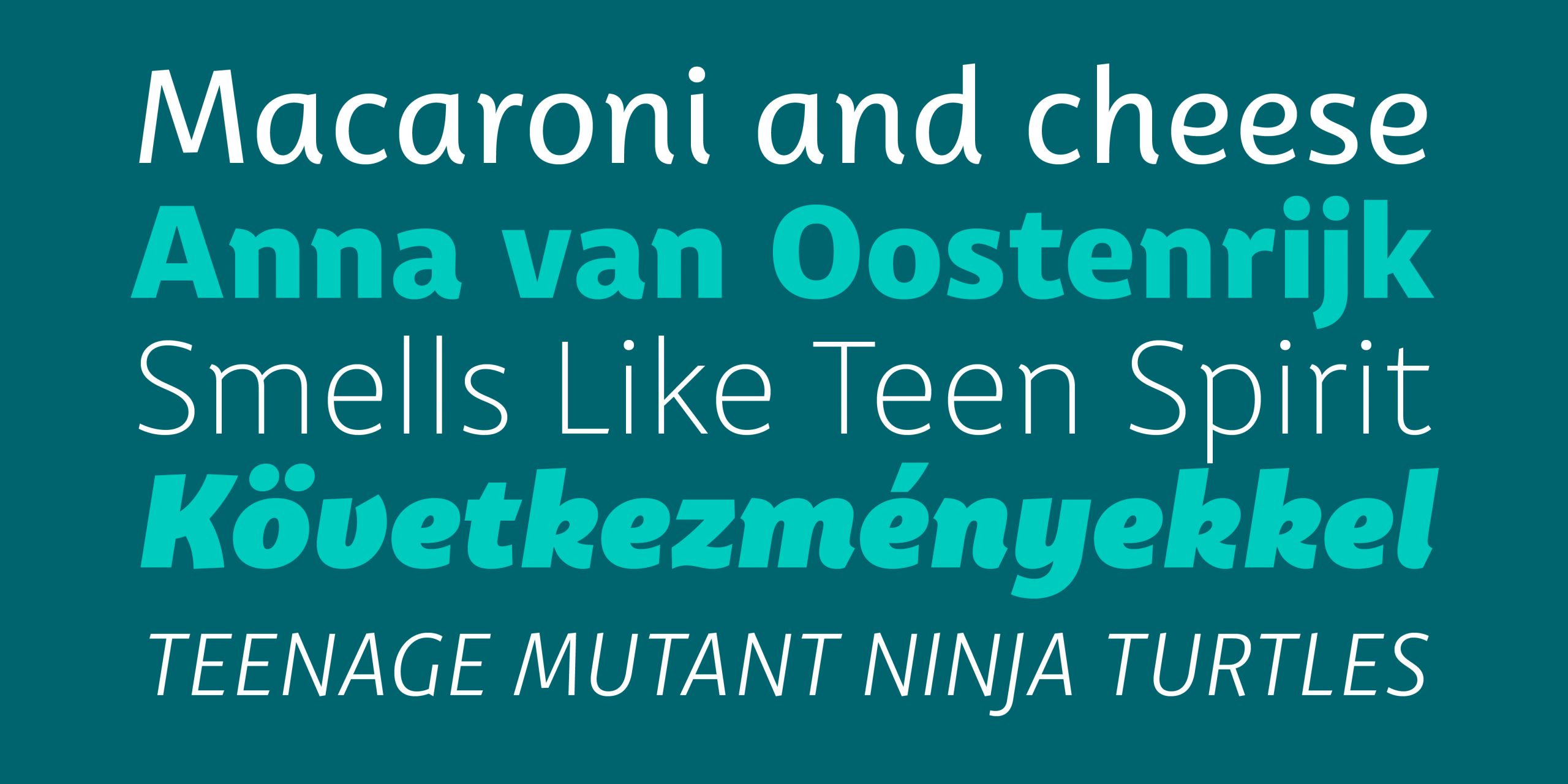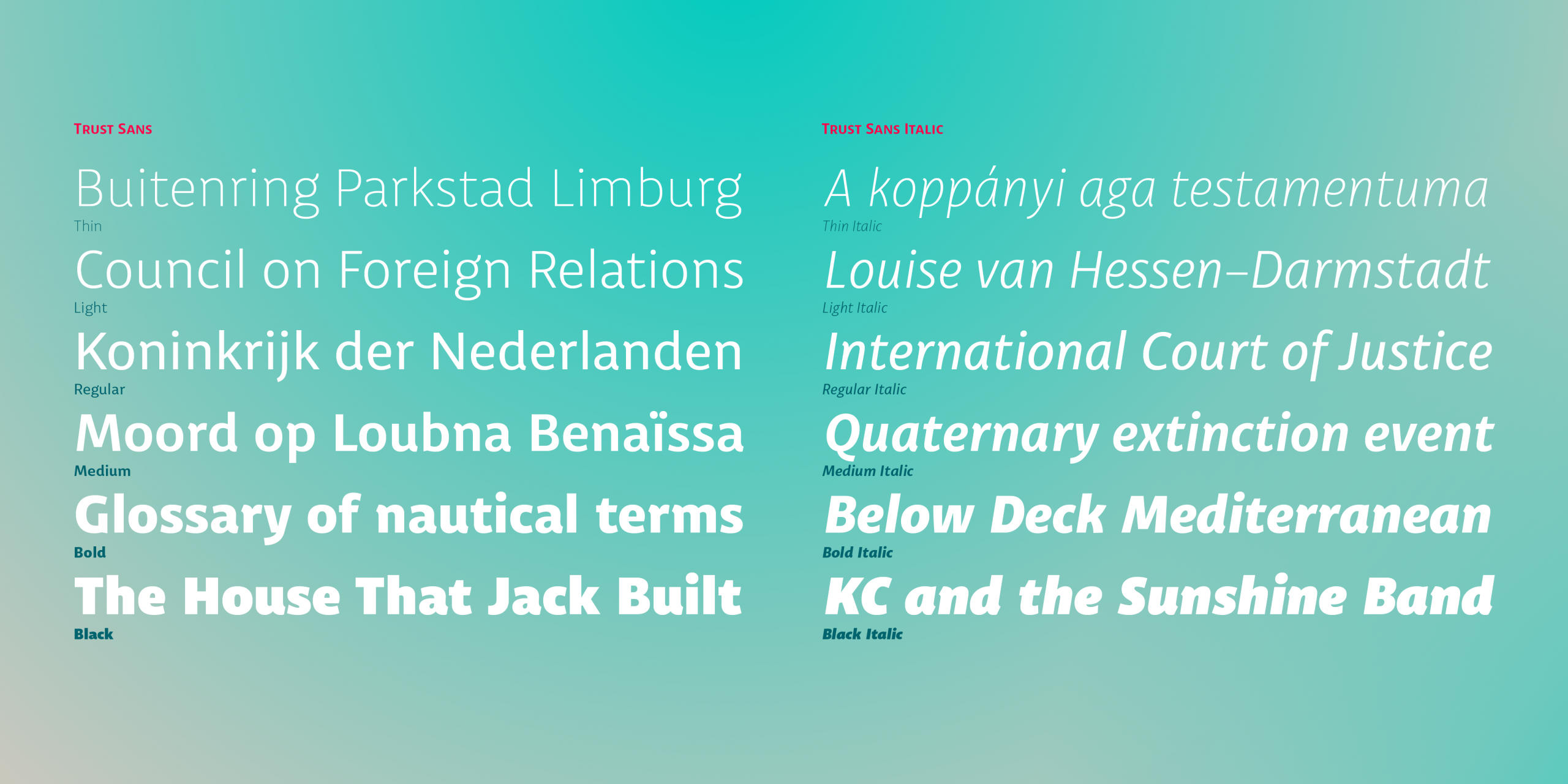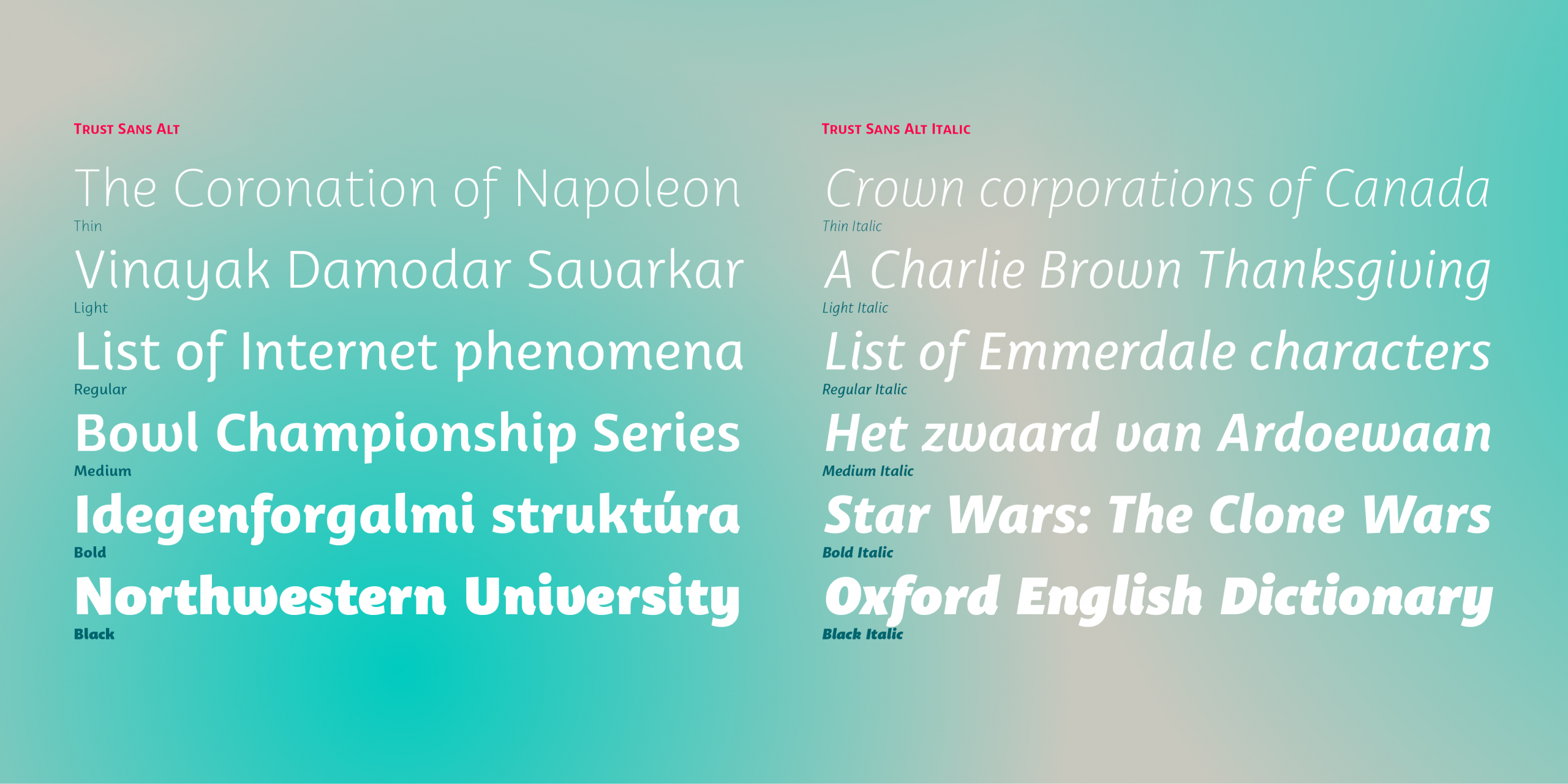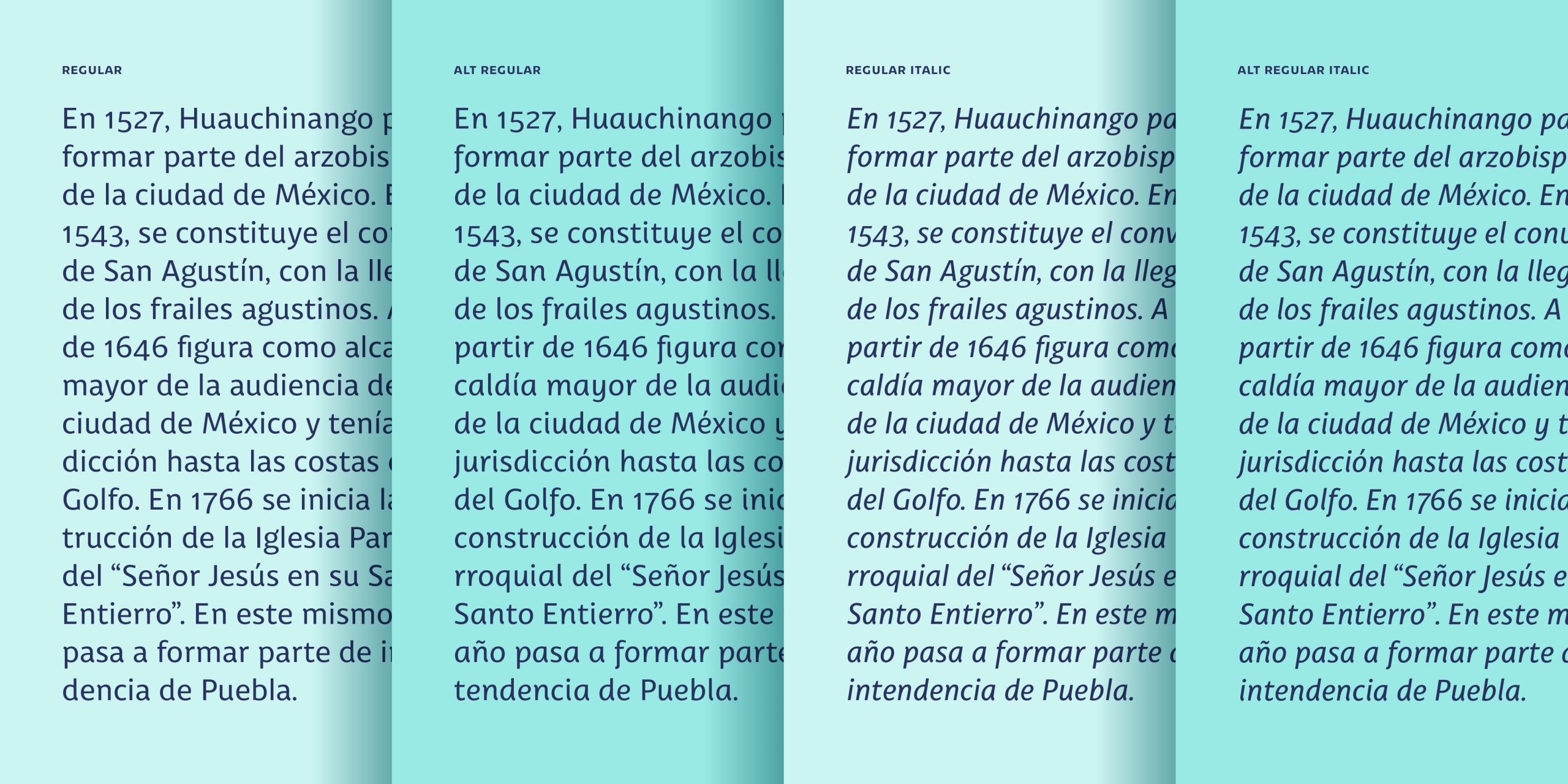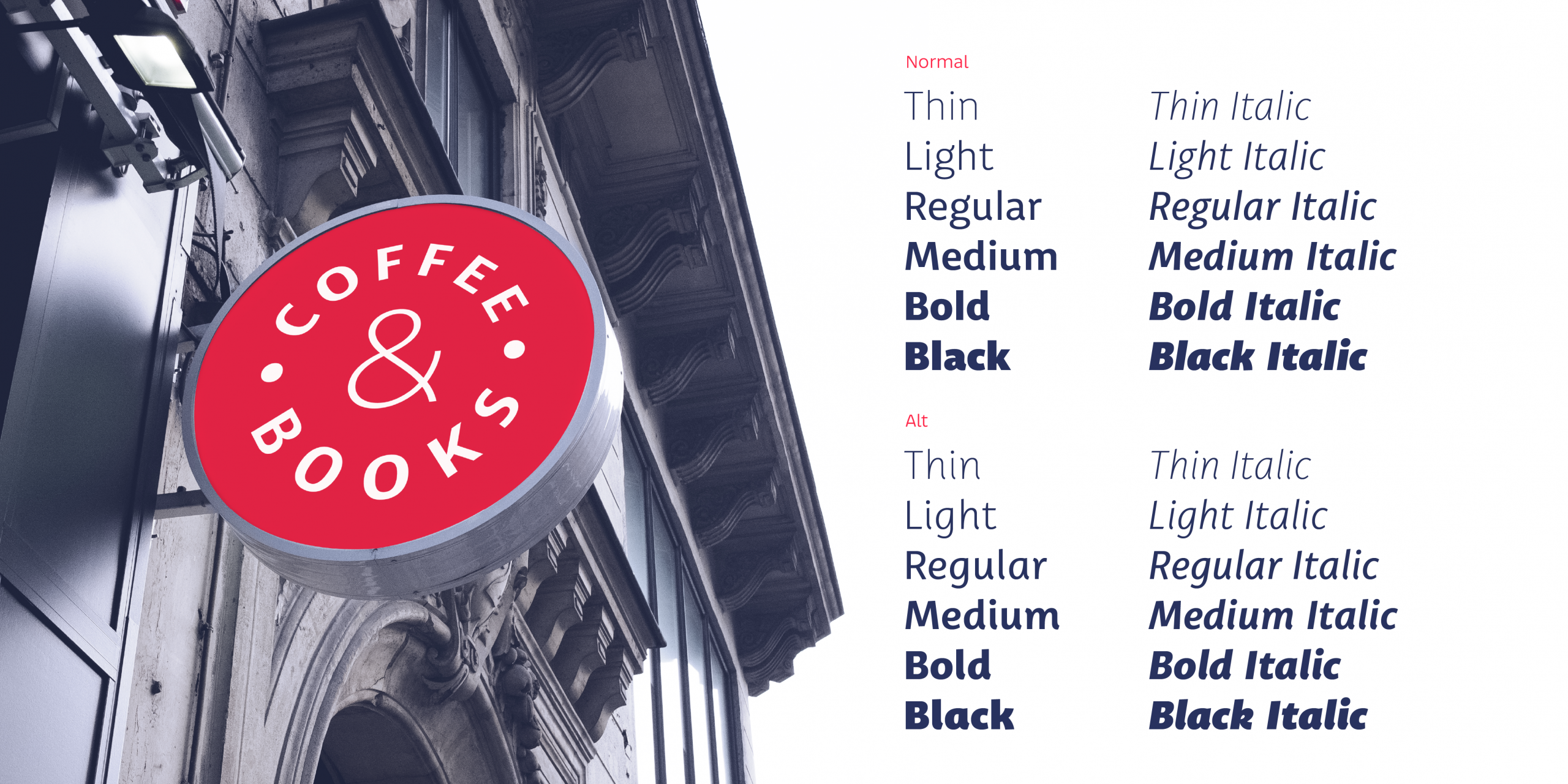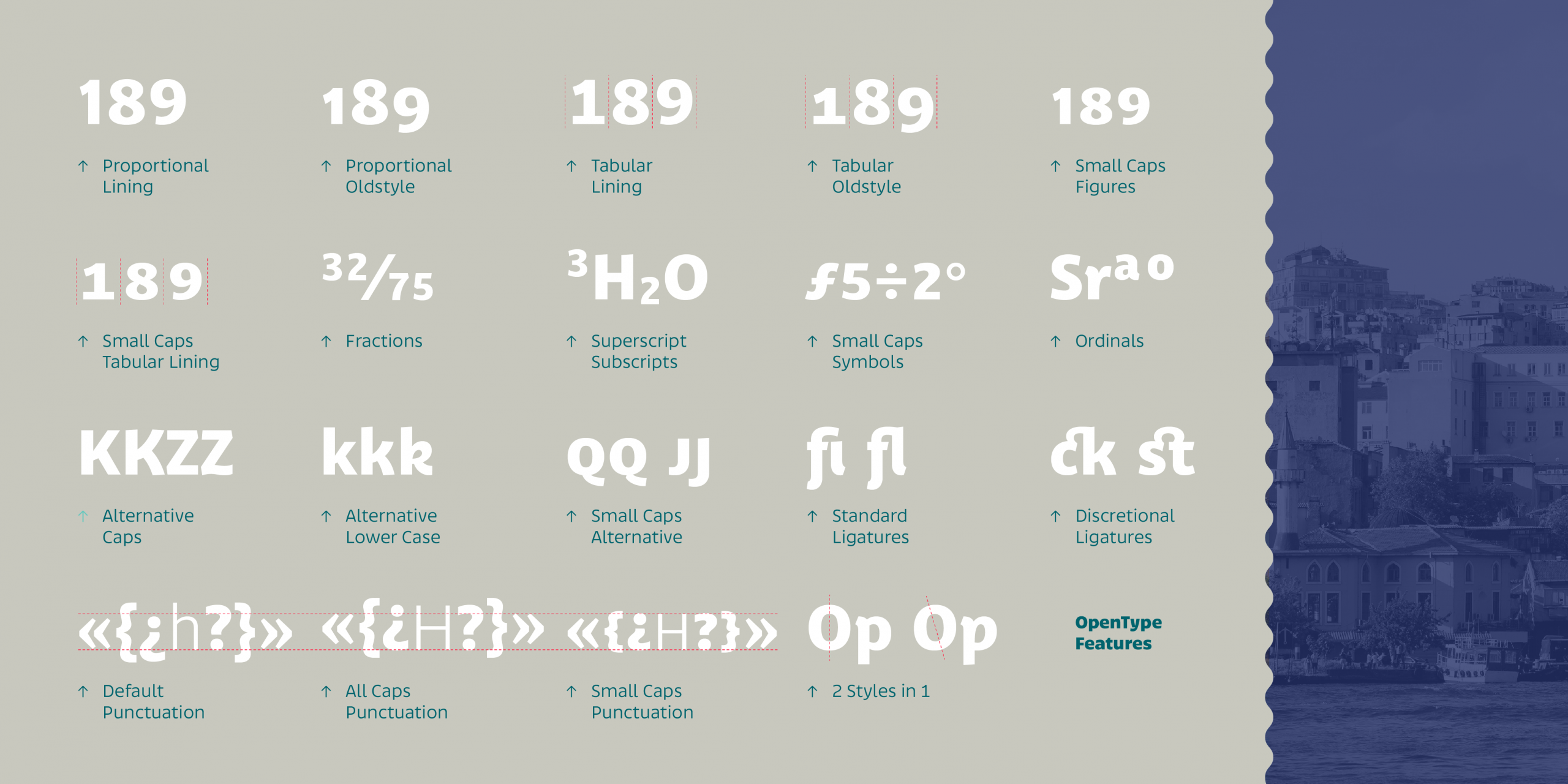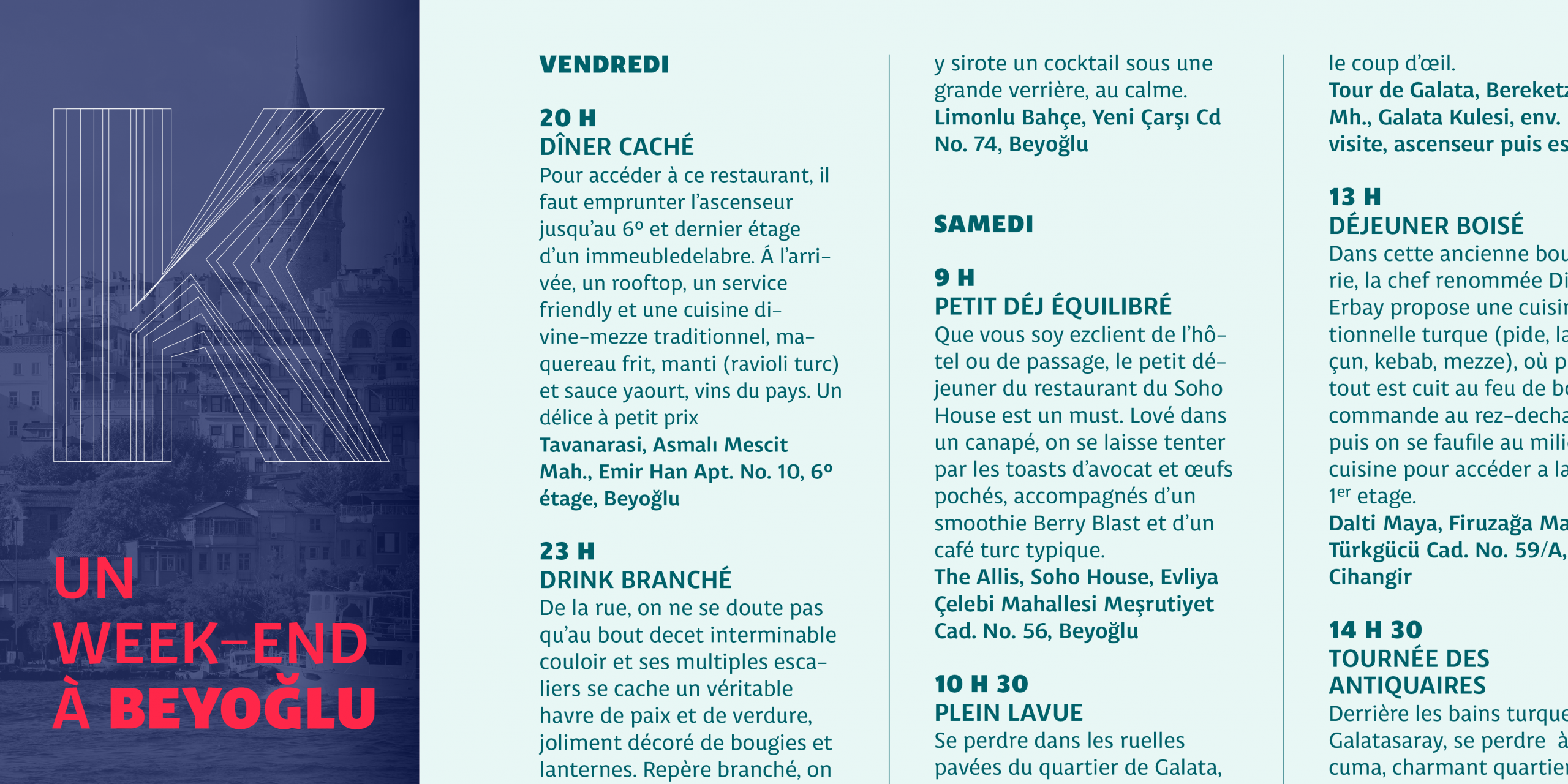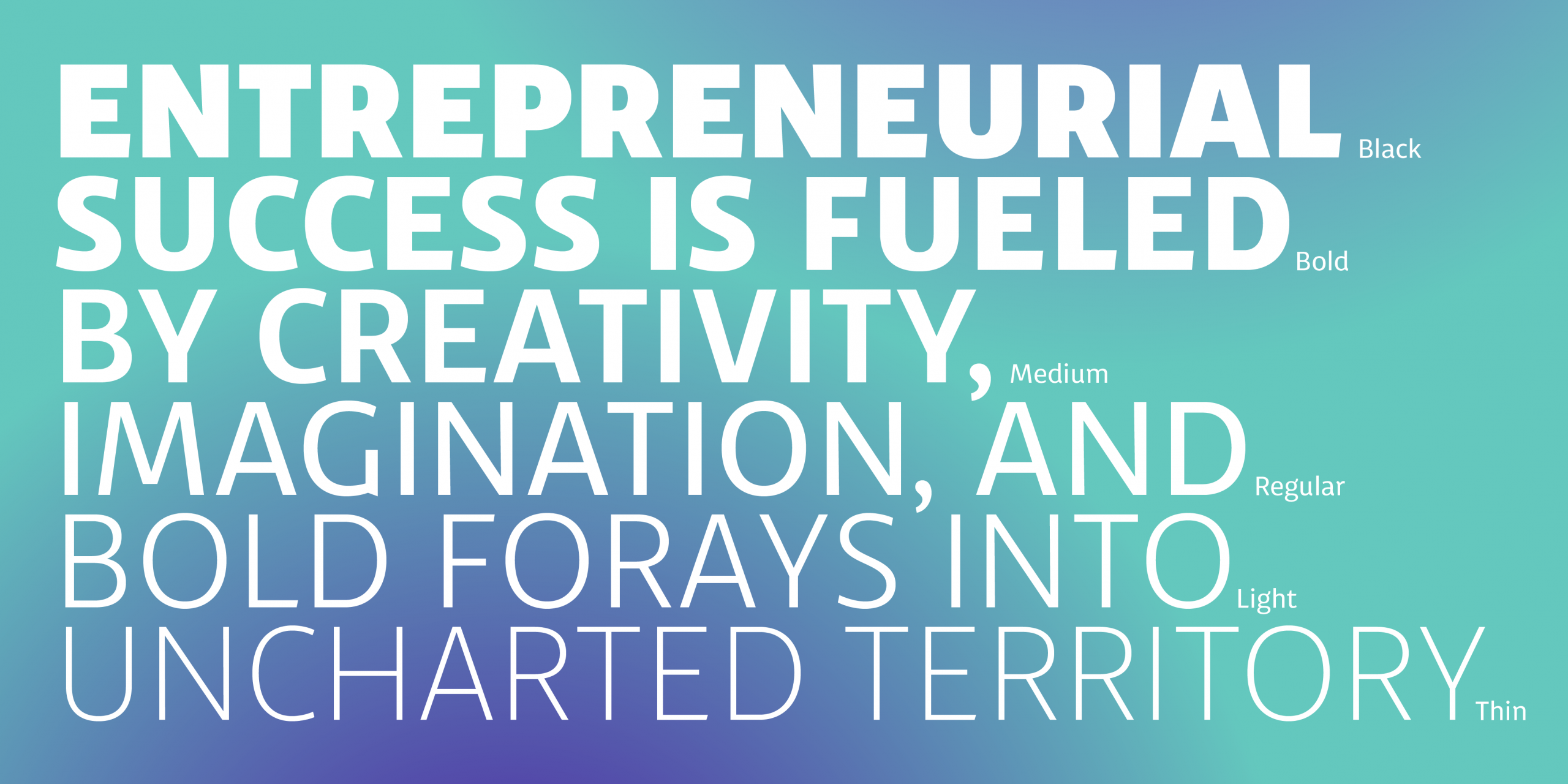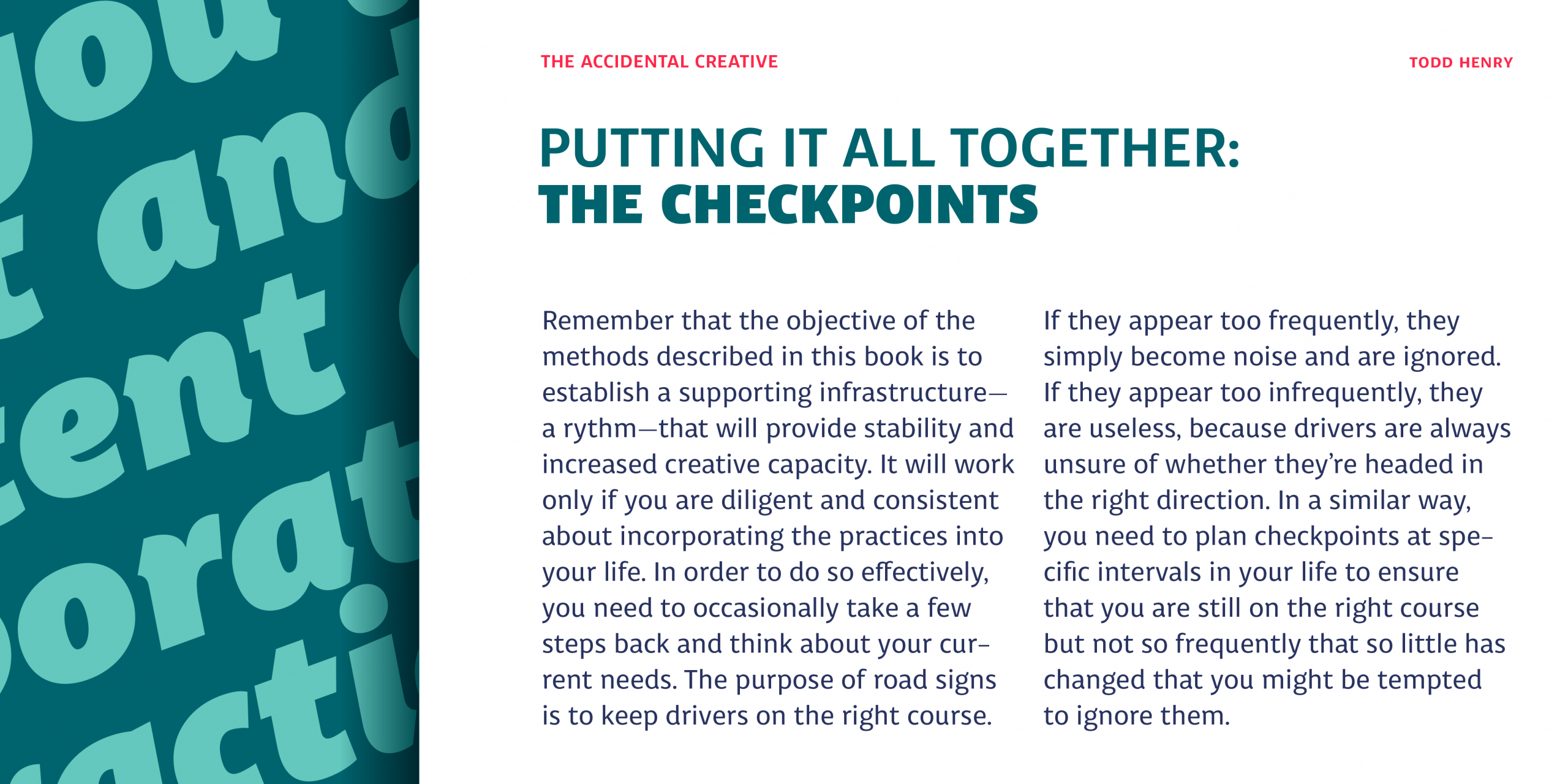
A typeface specially designed for corporate identity. Trust Sans is a friendly typeface, with a flowing ductus and humanistic construction that helps designers meet the challenges of everyday life.
This typeface comes in a variety of weights-perfect for creating an effective typographic hierarchy-and includes an extensive character set, including small caps, various numerals, case-sensitive forms, context-sensitive and discretionary ligatures, and more. The family’s glyph set supports more than 200 Latin-based languages. Trust Sans is composed of two complementary subfamilies: the standard, more formal, and the alternative, more casual. Each family comes in 6 weights, from thin to black, with matching true italics. All of these features make Trust Sans an ideal typeface for a wide range of applications, including editorial design, immersive text, corporate identity, branding, and packaging.